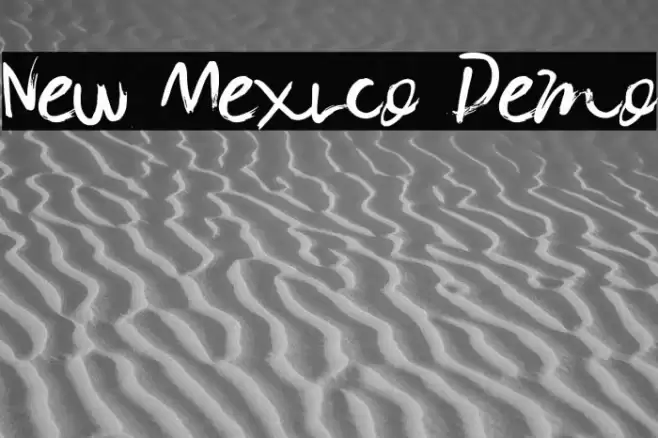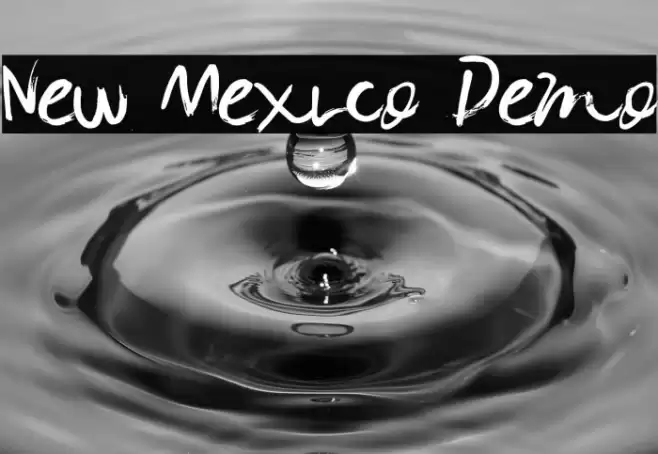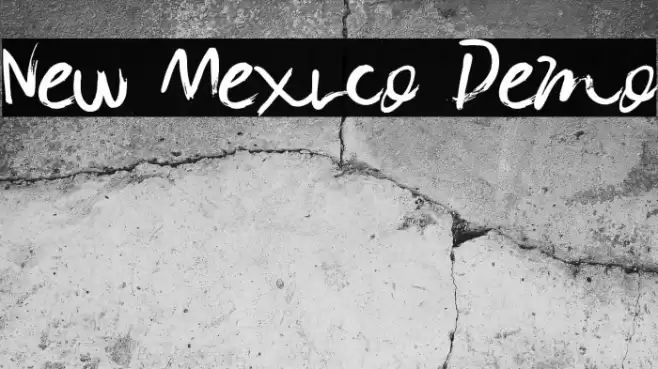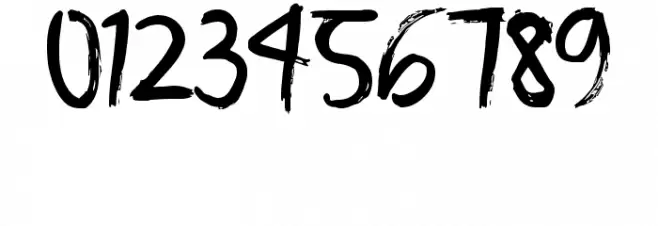
New Mexico Demo Font
New Mexico Demo Description
This font exudes a dynamic and artistic flair, characterized by its brushstroke-like appearance. The letters are crafted with a sense of spontaneity and energy, reminiscent of hand-painted signage or expressive calligraphy. Each character varies slightly in thickness, adding to the organic and lively feel of the typeface. The uppercase letters are bold and assertive, while the lowercase letters maintain a fluid and graceful continuity. Numbers are equally expressive, maintaining the same brushstroke style. This font is perfect for projects that require a personal touch or a creative, artistic vibe.
A dynamic, brushstroke-style font with an artistic and expressive flair from Regular fonts.
- Proposed Projects: Ideal for artistic posters, creative branding, expressive invitations, and unique logo designs.
- Overall Style: Artistic
- Use Case: Logos, Headlines, Creative projects